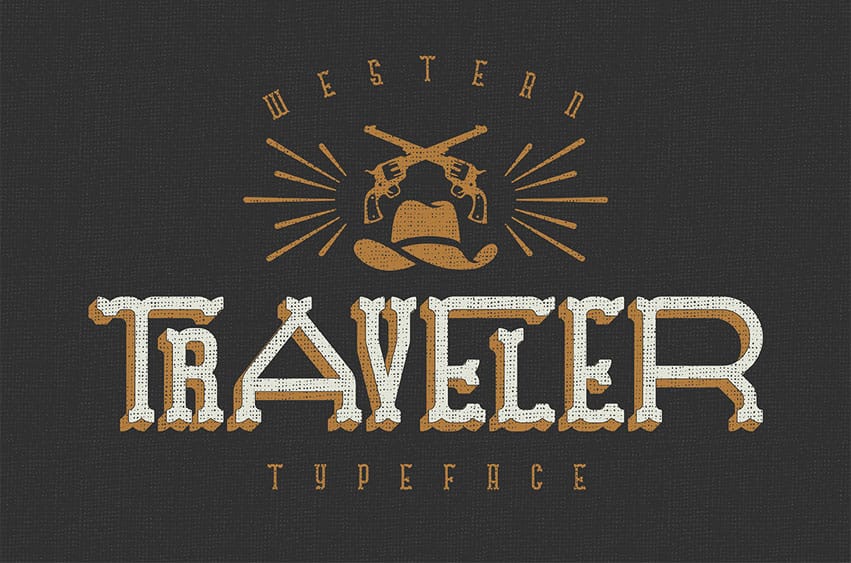
Traveller Font is beautiful typeface and can be used for various purposes such as headings, logos, posters, news papers, invitations and much more!
Perfectly crafted to meet all your design needs.